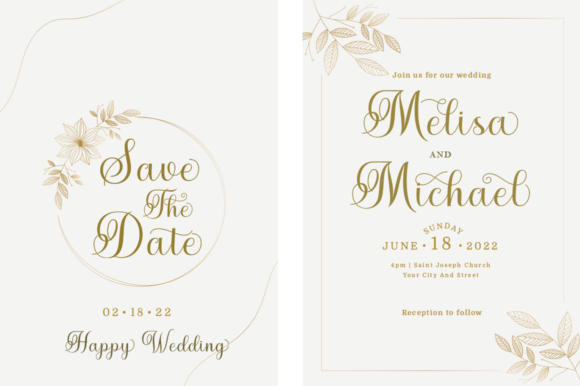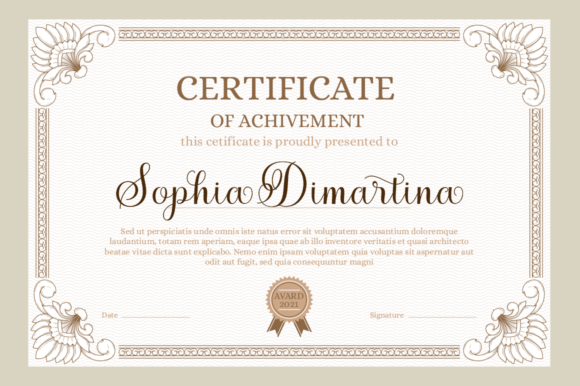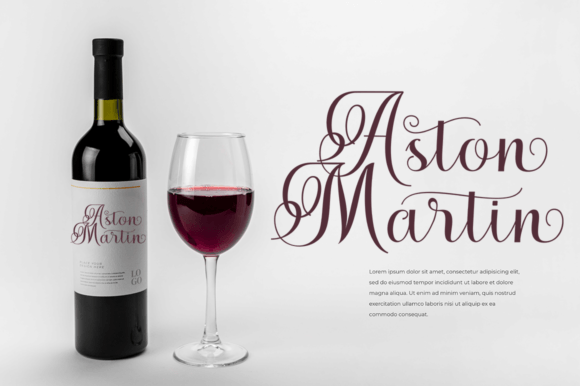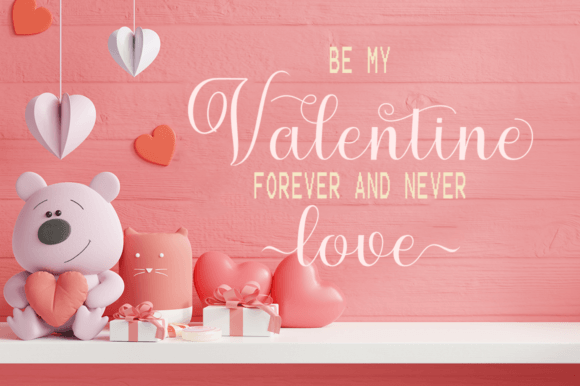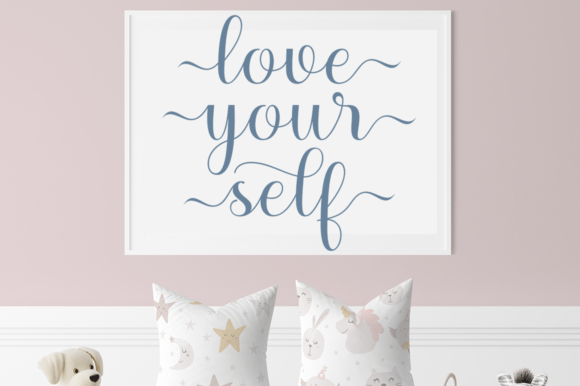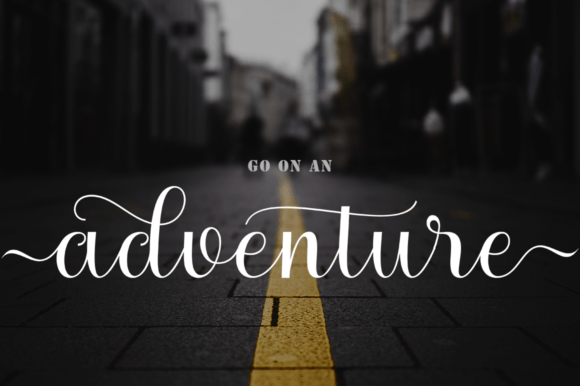
Unlock the Magic of Handwritten Delights
Have you ever stared at a blank page, struggling to bring your creative vision to life? The blank slate can be intimidating, but it’s in these moments that we discover our true potential. As designers, we know that the right tools can make all the difference. That’s where the Anglesti Script Font comes in – a dazzling script font that’s been crafted with love and attention to detail.
This beautifully designed font is more than just a pretty face; it’s a powerful tool that can elevate any creation. With its PUA encoding, you’ll have access to a world of glyphs and swashes, giving you the freedom to experiment and push the boundaries of your design. Whether you’re a seasoned pro or just starting out, the Anglesti Script Font is an invaluable addition to your font library.
Anglesti Script Font Key Features
- Unique Characteristics: Anglesti Script Font features a unique blend of traditional and modern calligraphy elements, making it perfect for adding a touch of elegance and sophistication to various design projects.
- Language Support: Designed to support multiple languages, including Latin, Cyrillic, and Greek alphabets, making it a versatile choice for global designs.
- Kerning and Ligatures: The font includes advanced kerning and ligature pairs to enhance readability and aesthetic appeal.
Designer Review: Anglesti Script Font
I had the chance to work with the Anglesti Script Font, and I’m excited to share my honest thoughts on it. Overall, I found it to be a lovely addition to any design project.
- The font’s elegant, cursive design makes it perfect for adding a touch of sophistication to any text-based element.
- The Anglesti Script Font is highly legible, even at smaller font sizes, making it a great choice for body text or headlines.
- The font’s versatility allows it to be used in a wide range of design projects, from fashion and beauty to lifestyle and wellness.
- The font’s script design can make it difficult to read in certain contexts, such as in small print or at high speeds.
- The Anglesti Script Font may not be the best choice for projects that require a lot of technical or scientific content, as it can be harder to read in those contexts.
Overall, I’m really impressed with the Anglesti Script Font. While it may have some limitations, its unique design and high legibility make it a great addition to any designer’s toolkit. I’d definitely consider using it again in the future.
Anglesti Script Font is perfect for adding a touch of elegance to your social media graphics, blog posts, and marketing materials.
Anglesti Script Font is ideal for creating custom logos, posters, and print materials.
Anglesti Script Font is perfect for adding a touch of sophistication to your presentations and documents.
Some tips for getting the most out of Anglesti Script Font include:
- Using it sparingly to add emphasis and create visual interest.
- Pairing it with other fonts to create a unique and stylish typography.
- Experiment
Alternatives to Anglesti Script Font for Designers
Pacifico is a modern, elegant script font that works well for headings and titles. It’s ideal for creating a sophisticated and refined look in your designs. Pacifico is a more refined version of Anglesti Script Font, with a smoother and more polished appearance.
Great Vibes is a beautiful, handwritten script font that’s perfect for adding a touch of personality to your designs. It’s great for use in logos, invitations, and other creative projects where a unique and expressive font is needed. Great Vibes has a more casual, relaxed feel compared to Anglesti Script Font, which makes it ideal for informal designs.
What is the font’s character encoding and language support?
Anglesti Script Font supports the Unicode character encoding standard, which allows it to display a wide range of languages, including Latin, Cyrillic, and Greek alphabets. The font also includes support for many special characters, including punctuation marks, mathematical symbols, and currency symbols. However, please note that the font may not support all languages or characters, so it’s essential